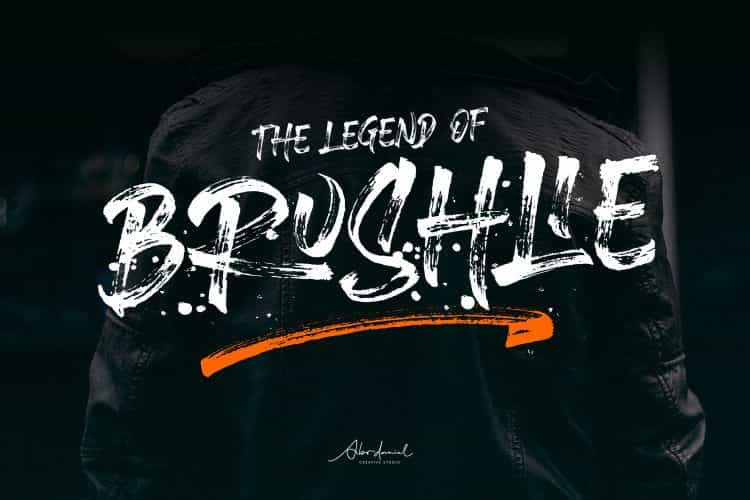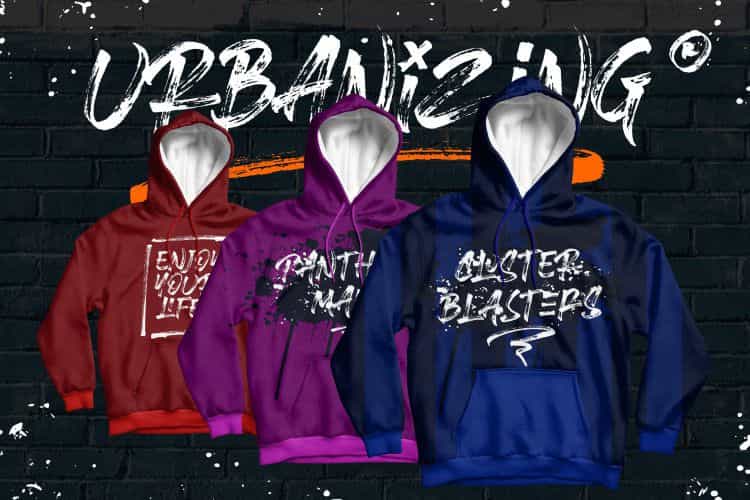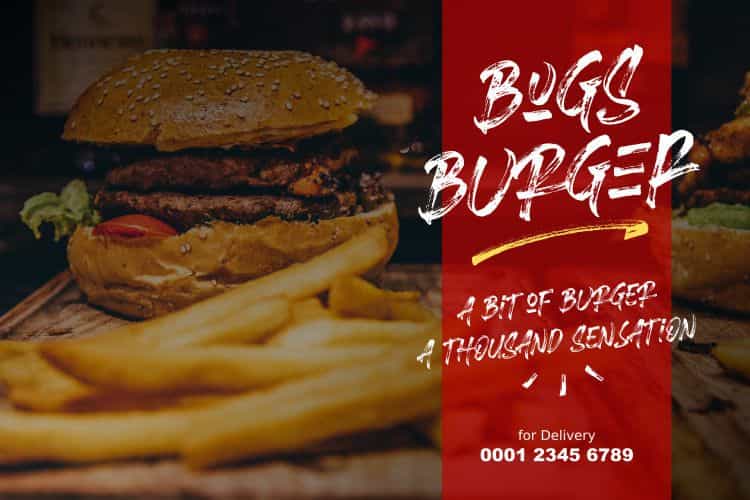
A new wild brush font by Abo Daniel Studio has just been released. This is a textured brush font, which is the new modern way of typography, created by hand with an irregular baseline. Presenting Brushlie Font. This font is designed with a real brush.